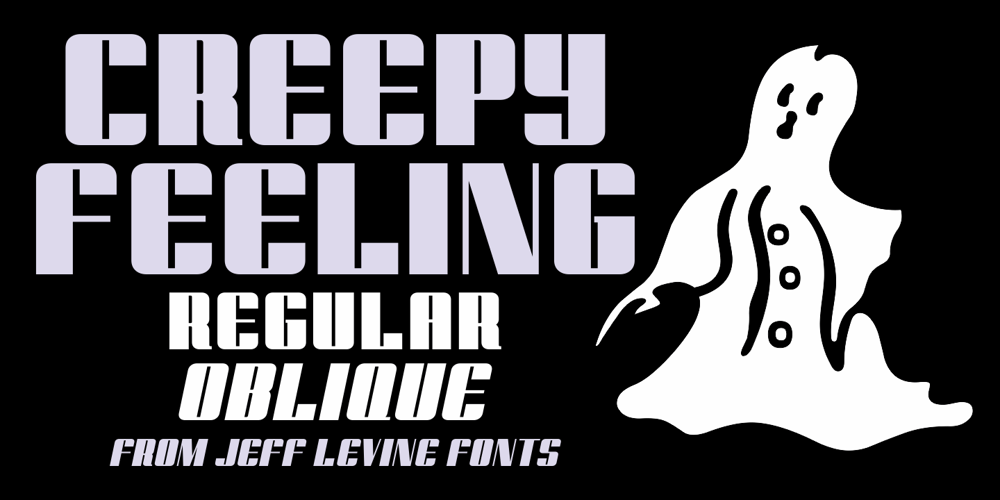
Creepy Feeling JNL Font Family was designed by Jeff Levine and published by Jeff Levine. Creepy Feeling JNL contains 2 styles and family package options. A Swedish movie poster for the 1936 Boris Karloff film “The Walking Dead” featured ultra bold thick and thin Art Deco hand lettering. Some modifications were made so that the design would be better suited for a digital type revival. Creepy Feeling JNL is now available in both regular and oblique versions.